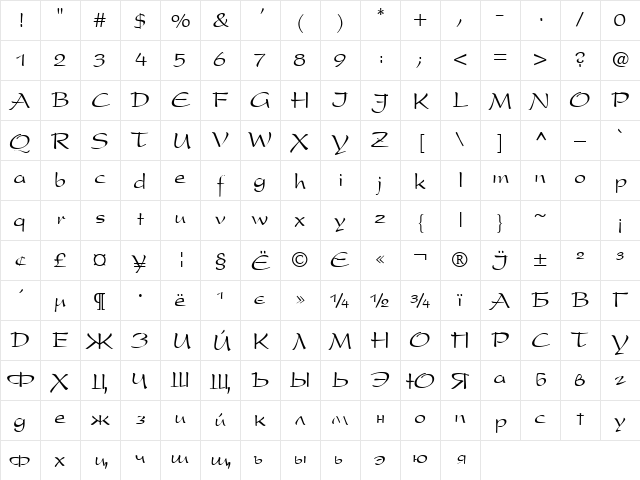
President Cyr Regular Free Font
President Cyr Regular
Complete President Cyr Regular glyph index. Displaying only characters natively supported by President Cyr Regular font.
Design Context for President Cyr
President Cyr is a composed and adaptable typeface that performs quietly and consistently across a wide range of design contexts.